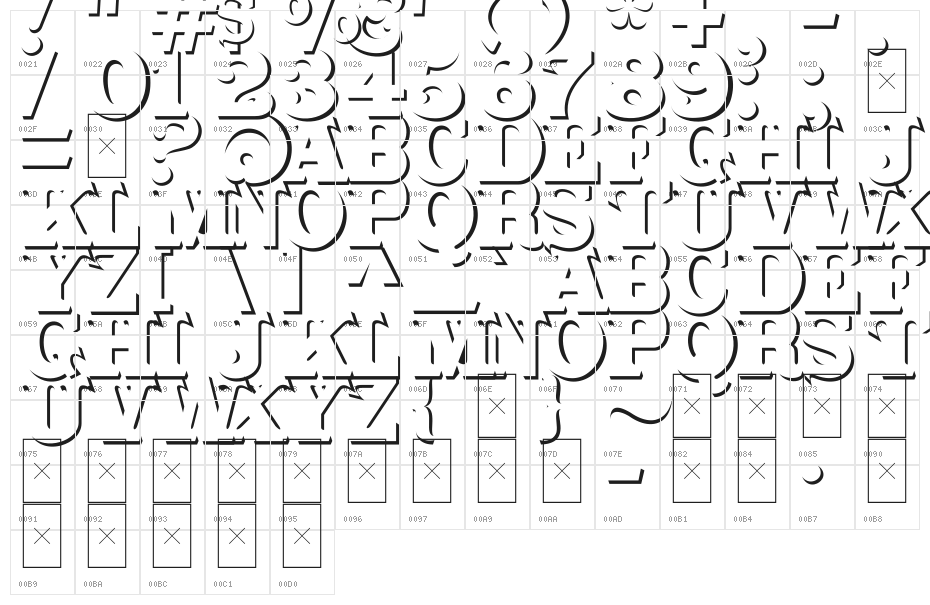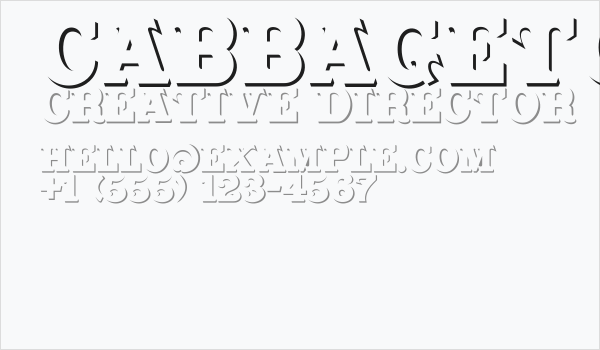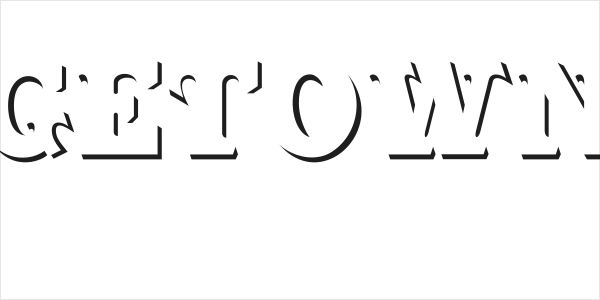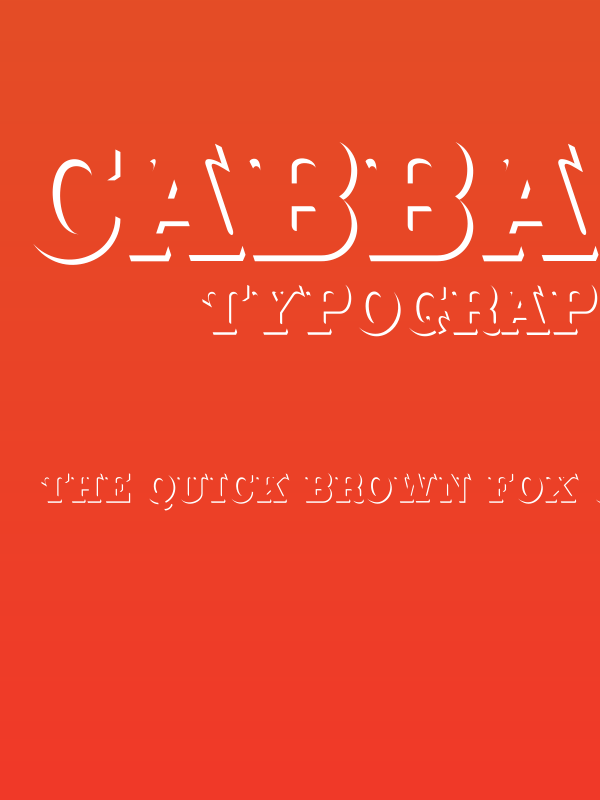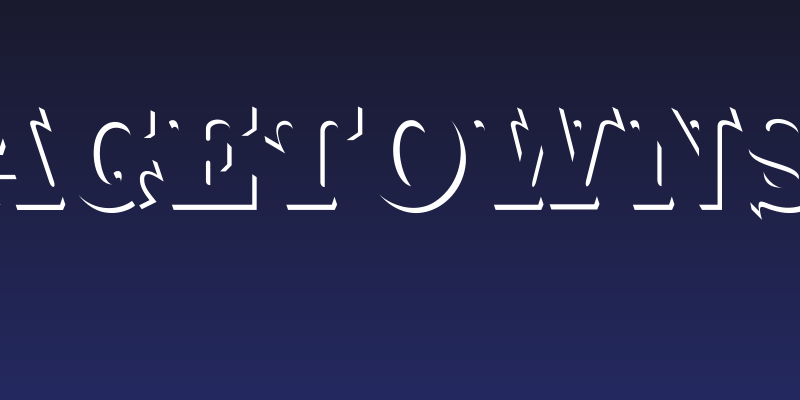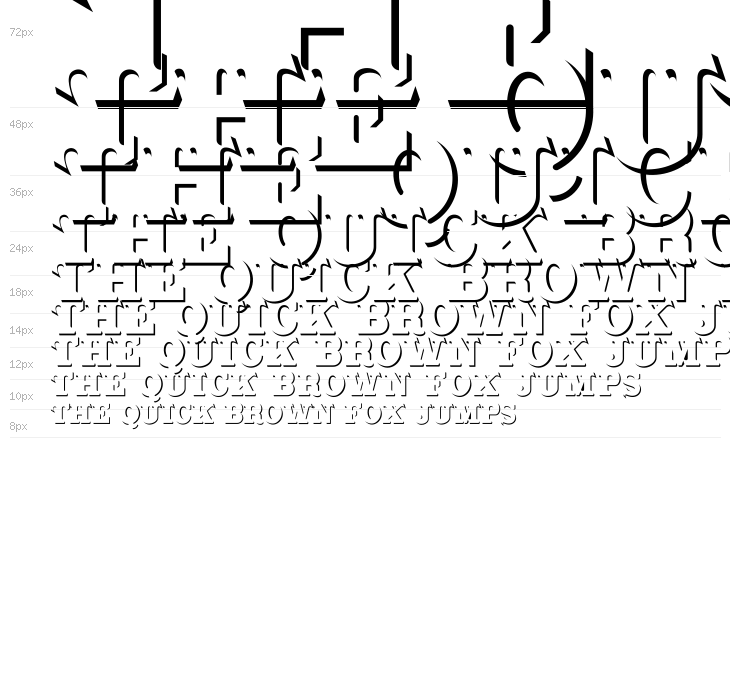
CabbagetownStone Font
CabbagetownStone Description
This font features a bold, stencil-like design with distinct cutouts in each character, creating a striking and industrial appearance. The uppercase and lowercase letters maintain a consistent style, with sharp edges and geometric forms. The numerals and special characters follow the same aesthetic, ensuring uniformity across all glyphs. The font's unique cutout style adds a layer of complexity and visual interest, making it ideal for projects that require a bold statement. Its structured and mechanical look is reminiscent of industrial signage or military stencils, providing a sense of strength and durability.
Overall StyleIndustrial, Modern
Proposed ProjectsIdeal for branding, posters, signage, and any design needing a bold, industrial touch.